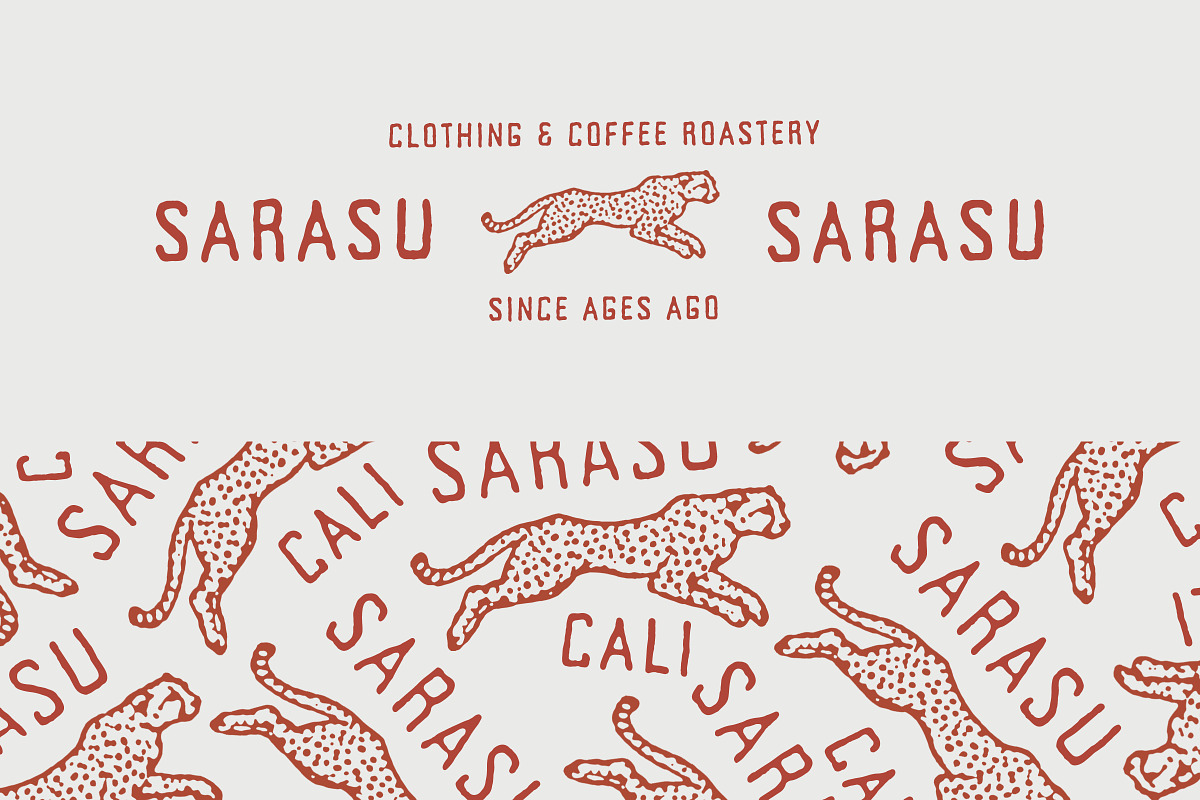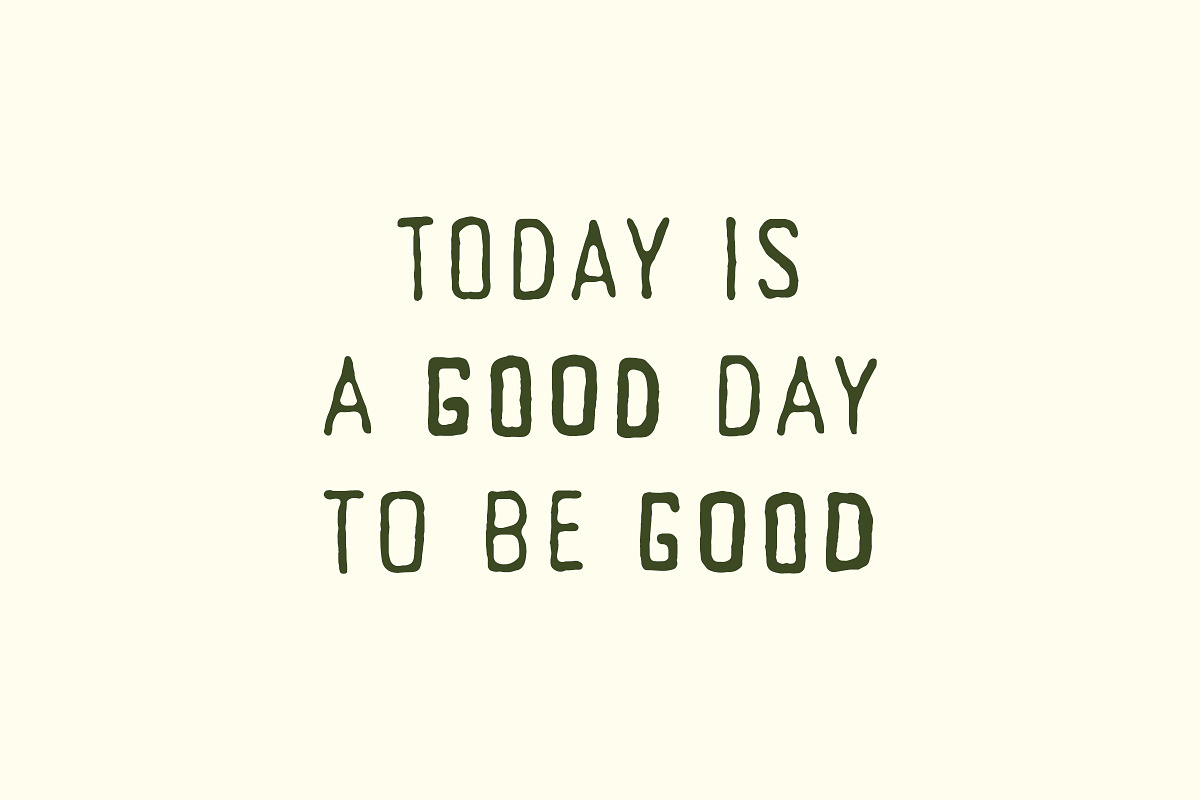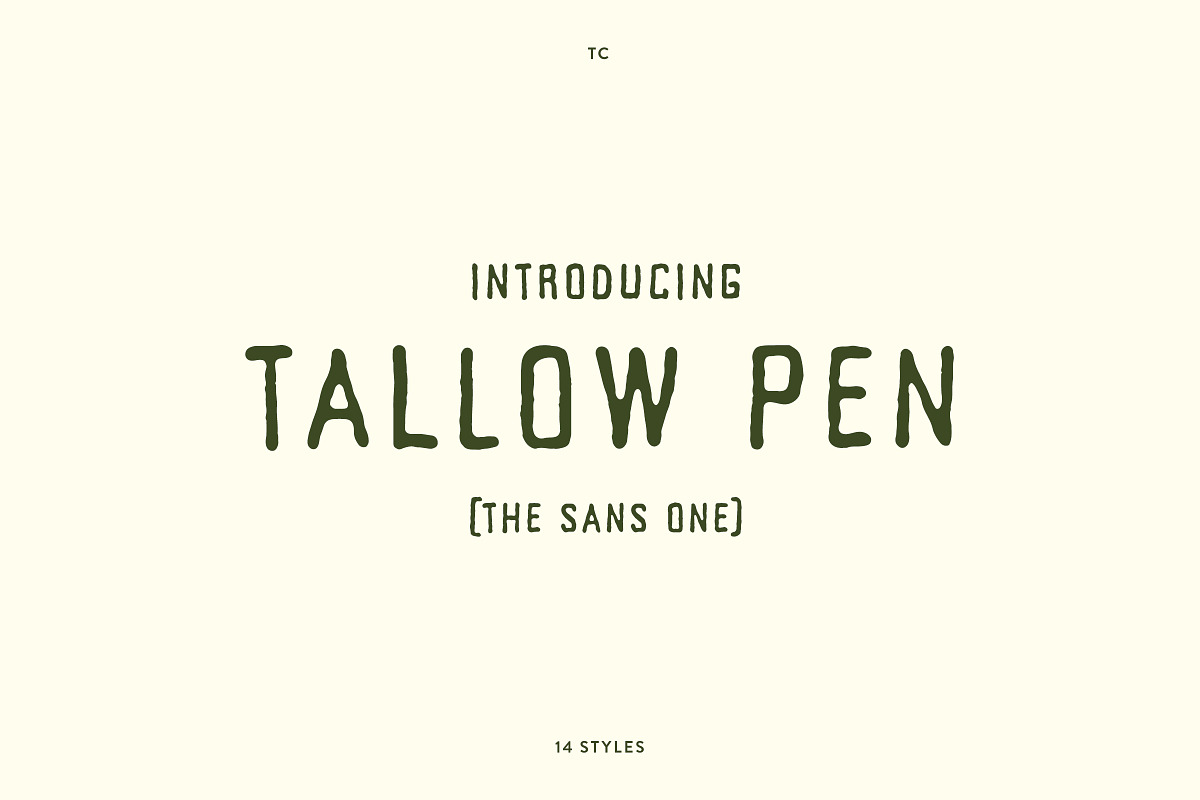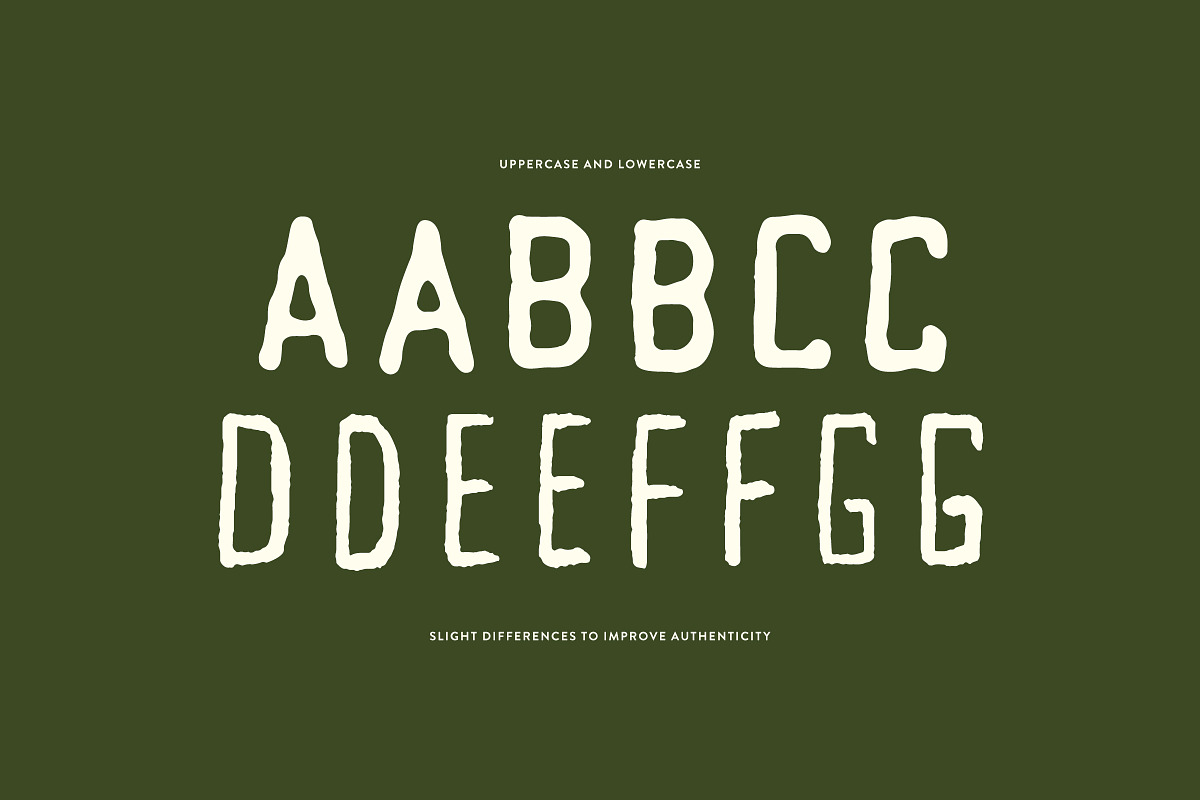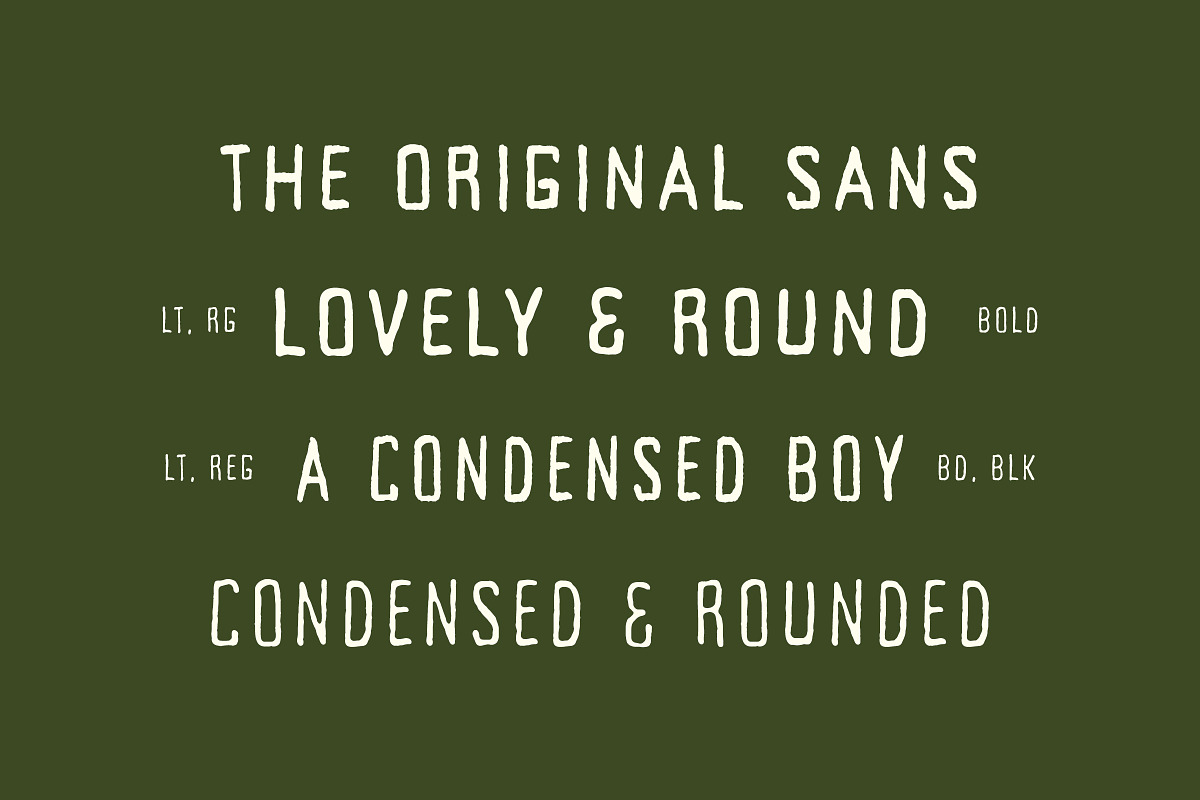
TC Tallow Pen Sans
Introducing Tallow Pen Sans – A rustic sans-serif font family that brings a hand-touched authenticity to every letter. With 14 styles, Tallow Pen Sans is all about organic charm and subtle quirks, perfect for projects that need that handcrafted edge.
Each style is packed with personality, balancing boldness with rounded, soft edges for a friendly yet rugged look.
A full-caps font family; Typing in lowercase provides a slightly different letter design, effortlessly adding authenticity by minimizing repeating letters.
From branding and logos to vintage-inspired projects, Tallow Pen thrives wherever a touch of the handmade is called for.
A full Latin 1 glyph range supporting a vast variety of languages.